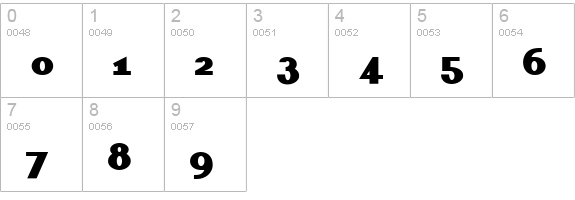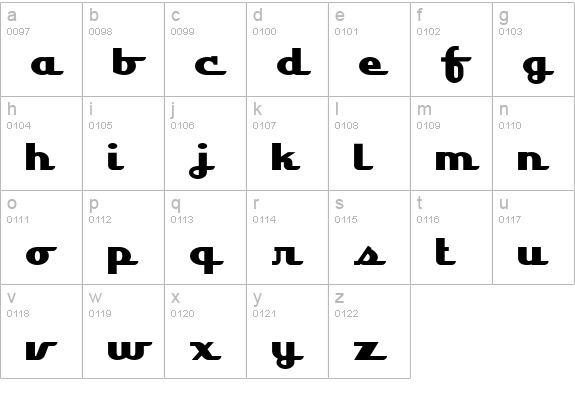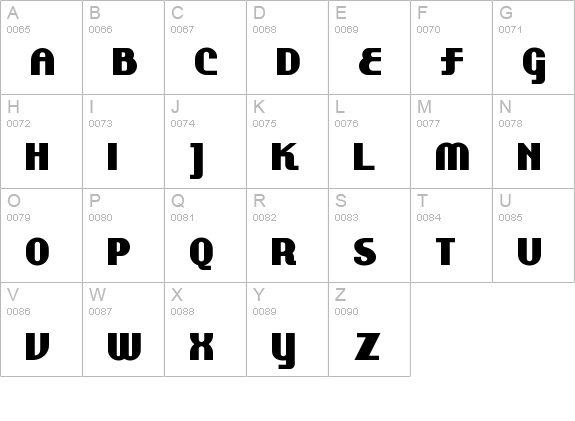
Lakeshore Drive NF Font Details
Lakeshore Drive NF font is a stylish and modern typeface that exudes sophistication and elegance. With its clean lines and unique design, this font is perfect for a wide range of design projects, from branding to editorial. The sleek and streamlined look of Lakeshore Drive NF font will surely capture the attention of your audience and give your project a professional touch. What makes Lakeshore Drive NF font even more appealing is that it is completely free to download at FontsMarket.com. Yes, you heard that right - you can access this stunning font without any cost at all. So, whether you are a designer looking to enhance your creations or a business owner wanting to elevate your brand, Lakeshore Drive NF font is the perfect choice for you. Don't miss out on this amazing opportunity to elevate your design game with this free and fabulous font!